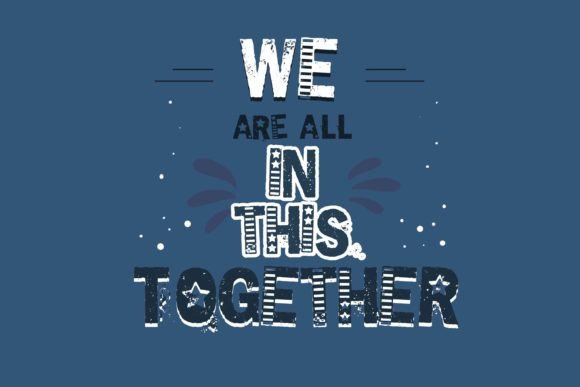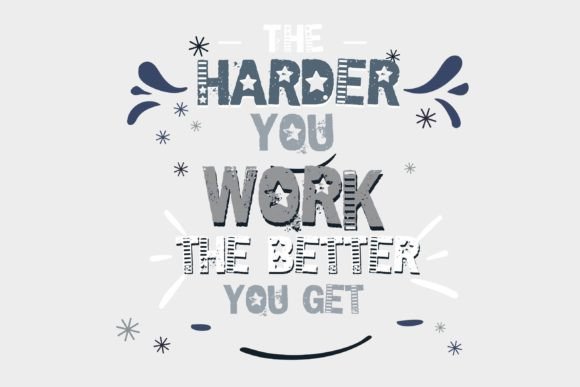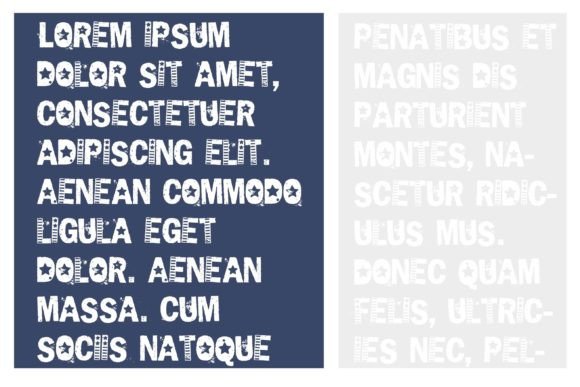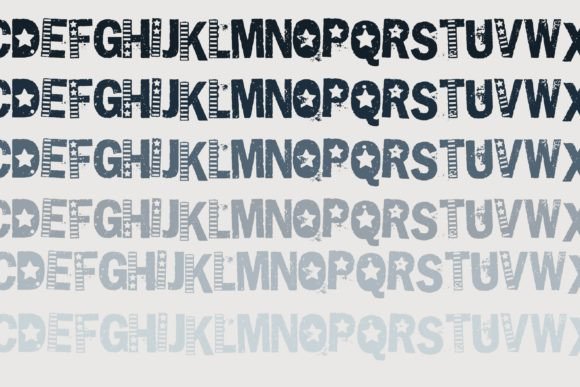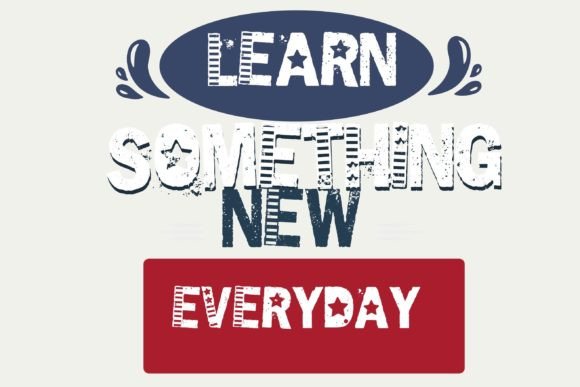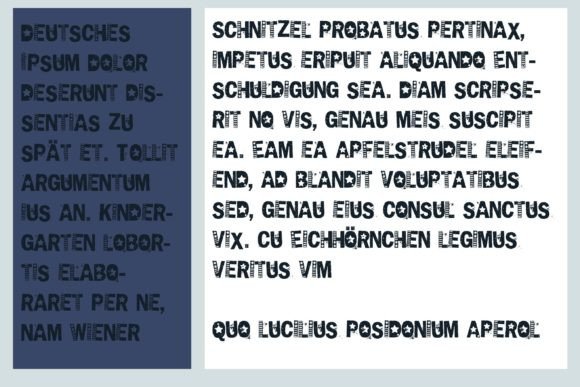
Introduction to Patriotic Spudster Font
As a designer, there’s nothing quite like the thrill of working on a new project, surrounded by a sea of blank canvas and endless possibilities. But sometimes, it’s the smallest details that can make the biggest impact – like the font you choose to use. Remember that one project where you spent hours searching for the perfect font to match your client’s vision? That’s where the Patriotic Spudster Font comes in, a game-changing design resource that’s sure to elevate your creative project to the next level.
With its beautifully intricate design, this high-quality font features an American flag motif that’s both striking and elegant. Each character is carefully crafted to evoke the patriotic spirit, making it the perfect choice for any project that requires a touch of national pride. Plus, with a transparent background, you can easily integrate it into any design without worrying about clutter. And the best part? It’s a free download, available to designers of all levels and skill sets.
Patriotic Spudster Font
- High-quality design resource featuring a unique, hand-drawn style with a transparent background for maximum versatility.
- Features a bold, playful design with a spud-themed twist, perfect for adding a patriotic touch to your creative project.
- Perfect for designers and artists working on patriotic-themed projects, such as Independence Day celebrations, American flags, and more.
Honest Review: Patriotic Spudster Font
I recently stumbled upon the Patriotic Spudster Font while searching for design resources for a creative project, and I must say it’s a unique addition to any design portfolio. The font’s design is reminiscent of classic American flags, making it a perfect choice for patriotic-themed designs.
What works well with the Patriotic Spudster Font is its high quality and versatility. The font comes in a transparent background, making it easy to overlay on top of other design elements. It’s also available for free download, which is a definite plus for designers on a budget.
Here are some of the font’s key features:
- Unique and patriotic design
- High quality and detailed design
- Transparent background for easy overlay
However, there are a few limitations to consider: ⚠️ the font may not be suitable for all design projects, and its bold design may be overwhelming in some cases. Additionally, the font’s limited character set may make it difficult to use for longer texts.
Overall, I think the Patriotic Spudster Font is a great addition to any design resource library. Its unique design and high quality make it a great choice for creative projects, especially those with a patriotic theme. ✨ Just be mindful of its limitations and use it accordingly.
Tips for Getting the Most Out of Patriotic Spudster Font
Use the transparent background feature to create a seamless design. Experiment with different font sizes and styles to enhance your creative project. This free download is a valuable design resource, perfect for any high-quality project.
Patriotic Spudster Font is ideal for patriotic-themed designs, holiday projects, and events. It can also be used for creative projects that require a unique and eye-catching font. Download the high-quality font now and start creating your next design masterpiece.